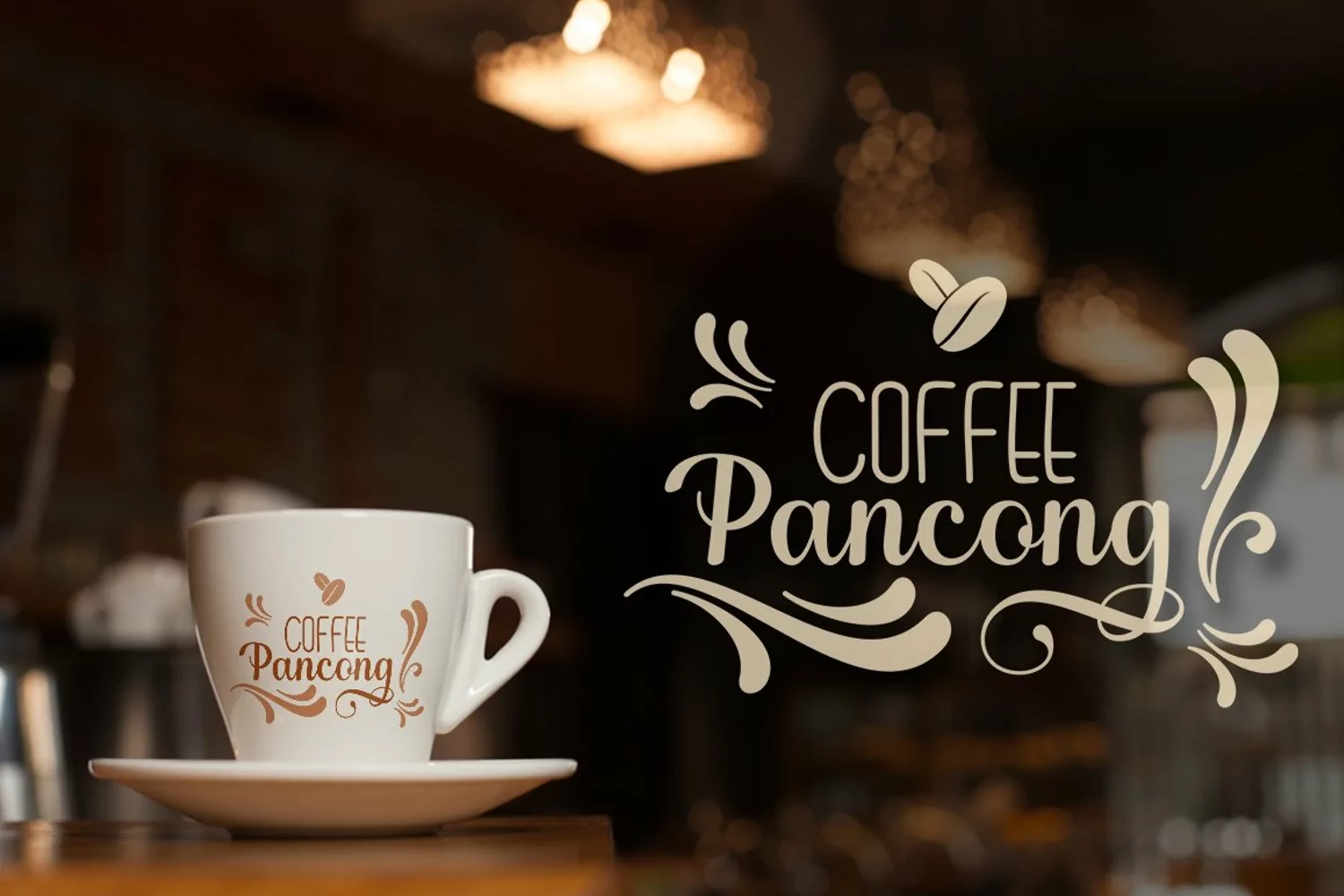
Authemia
Authemia is a font duo Script, Sans, and plus Extras typeface with characters dancing along its baseline. It has a casual and elegant touch. Can be used for various purposes such as logos, wedding invitations, headings, t-shirts, letterheads, signage, labels, news, posters, badges etc.
OpenType features with alternative styles, ligatures, and multi-language support.